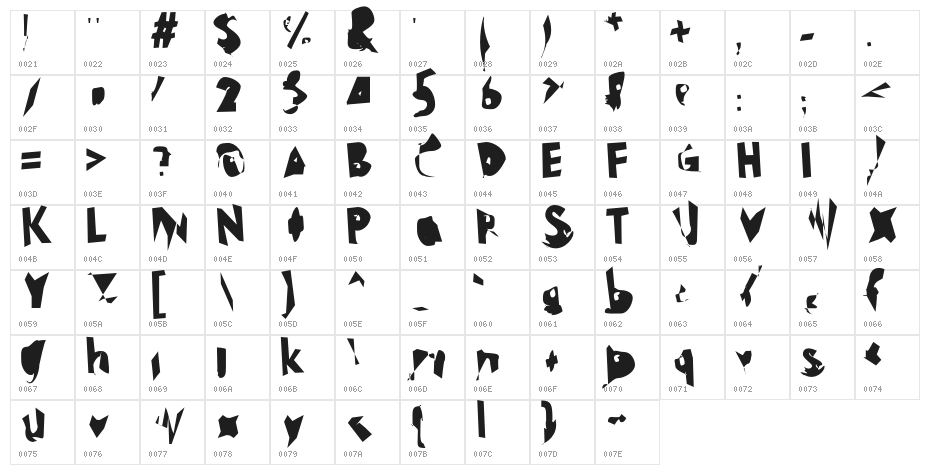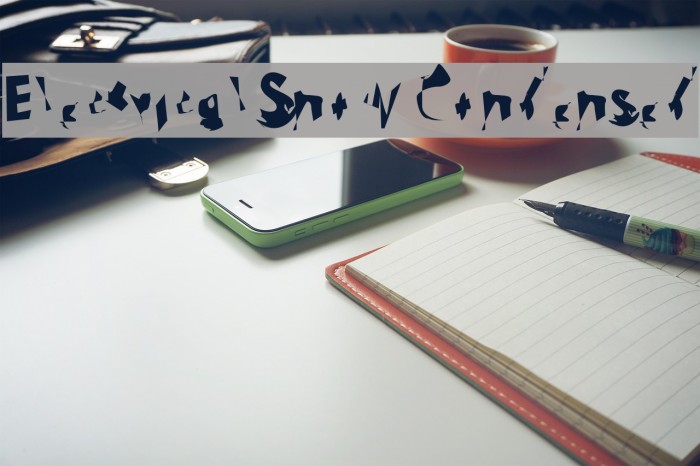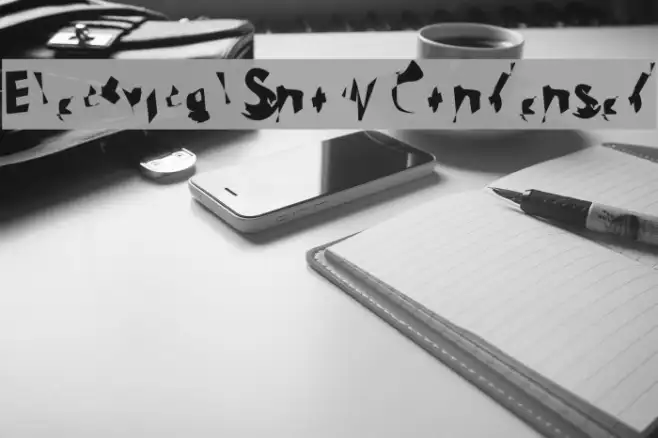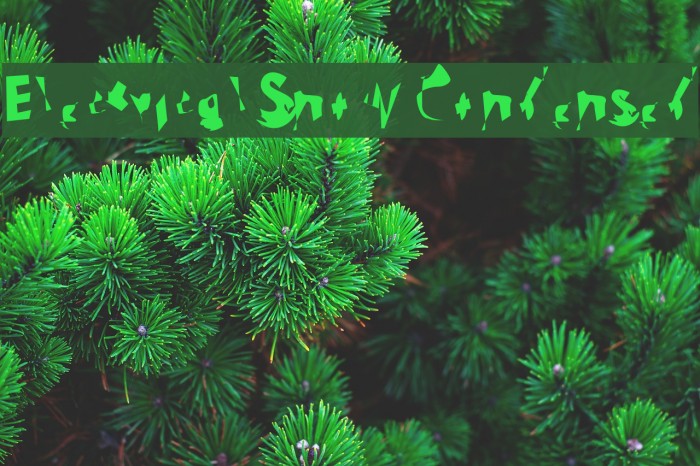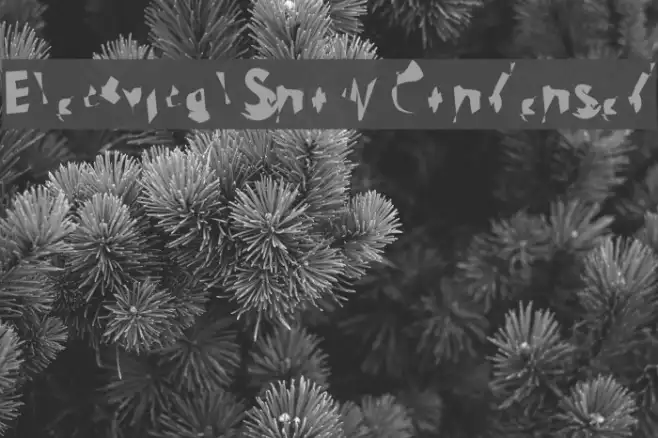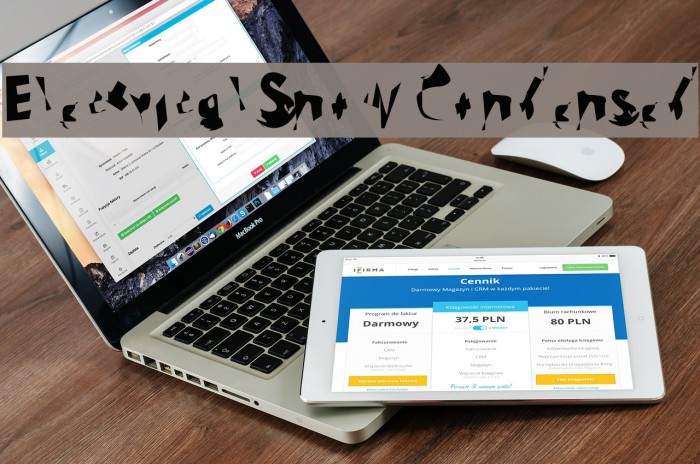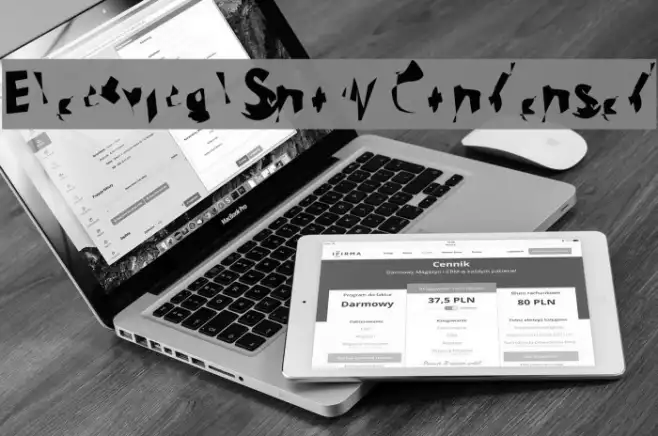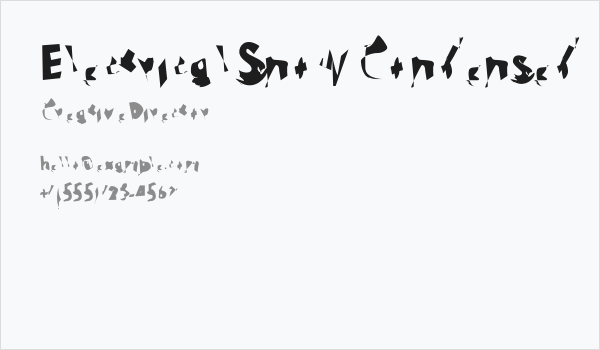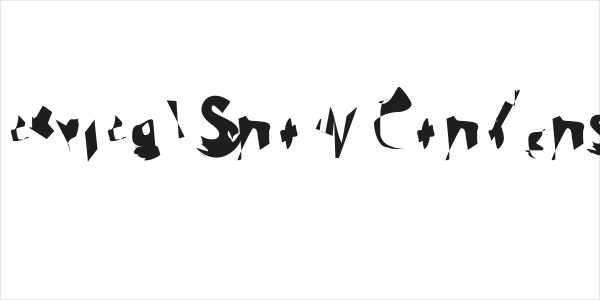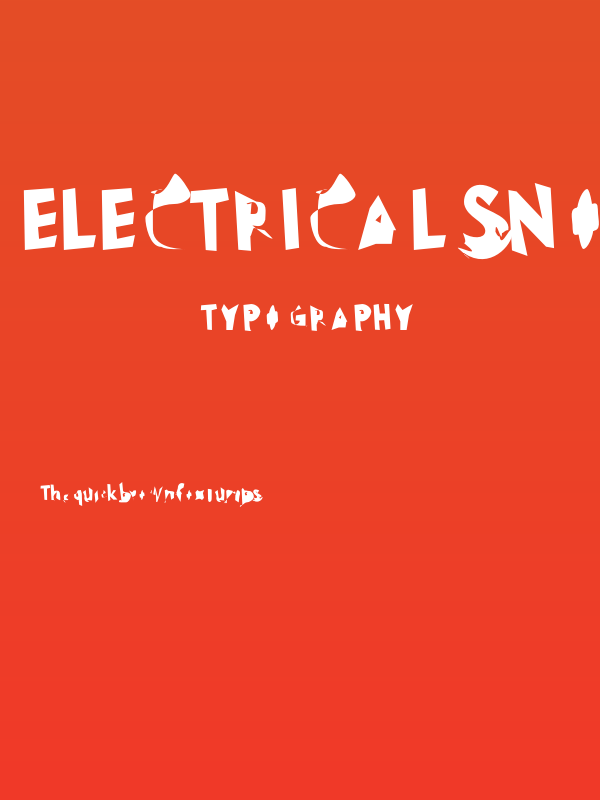
Electrical Snow Condensed Font
Electrical Snow Condensed Description
This font features a highly abstract and fragmented design, with each character appearing as if it has been shattered or distorted by electrical interference. The letters have an irregular, jagged appearance, creating a sense of chaos and movement. The uppercase and lowercase letters maintain this fragmented style, with some characters being more recognizable than others. Numbers and special characters follow the same design principle, adding to the overall disjointed aesthetic. The font's unique style makes it stand out, but it may challenge readability in longer texts.
| Proposed Projects | Ideal for projects requiring a bold, unconventional look, such as album covers, posters, or digital art pieces. |